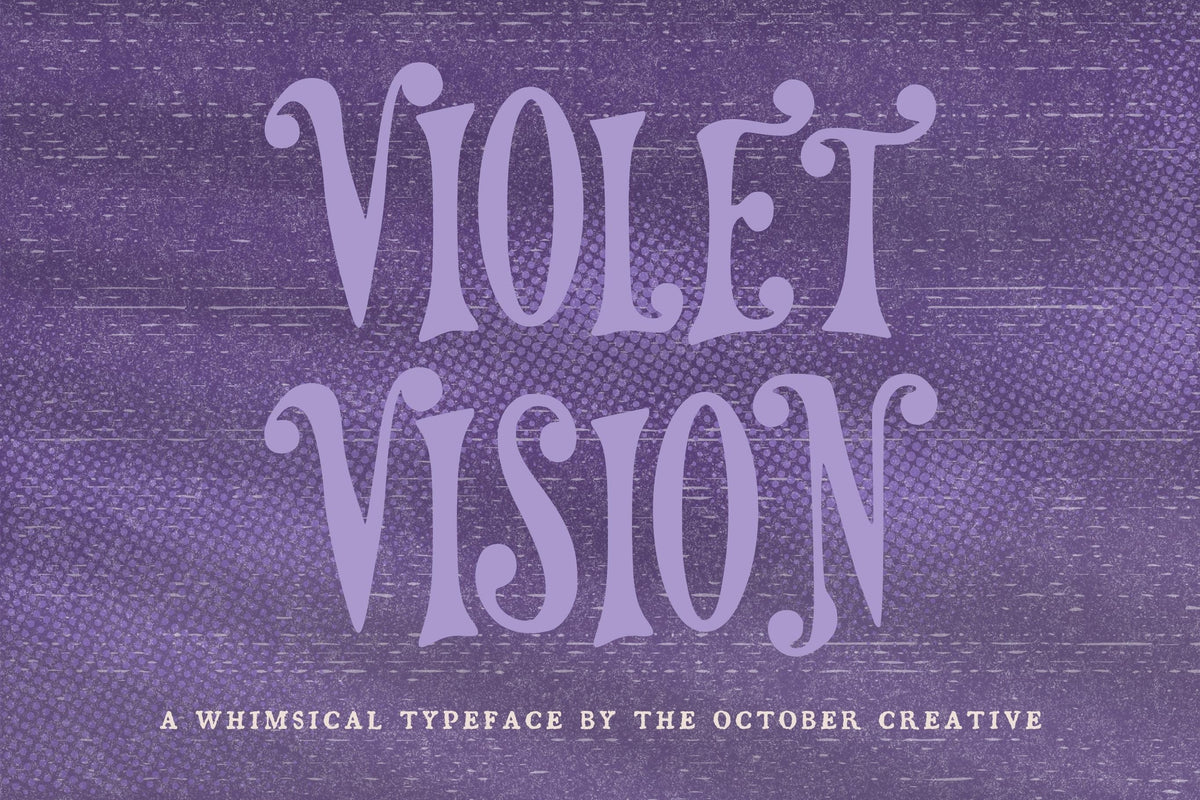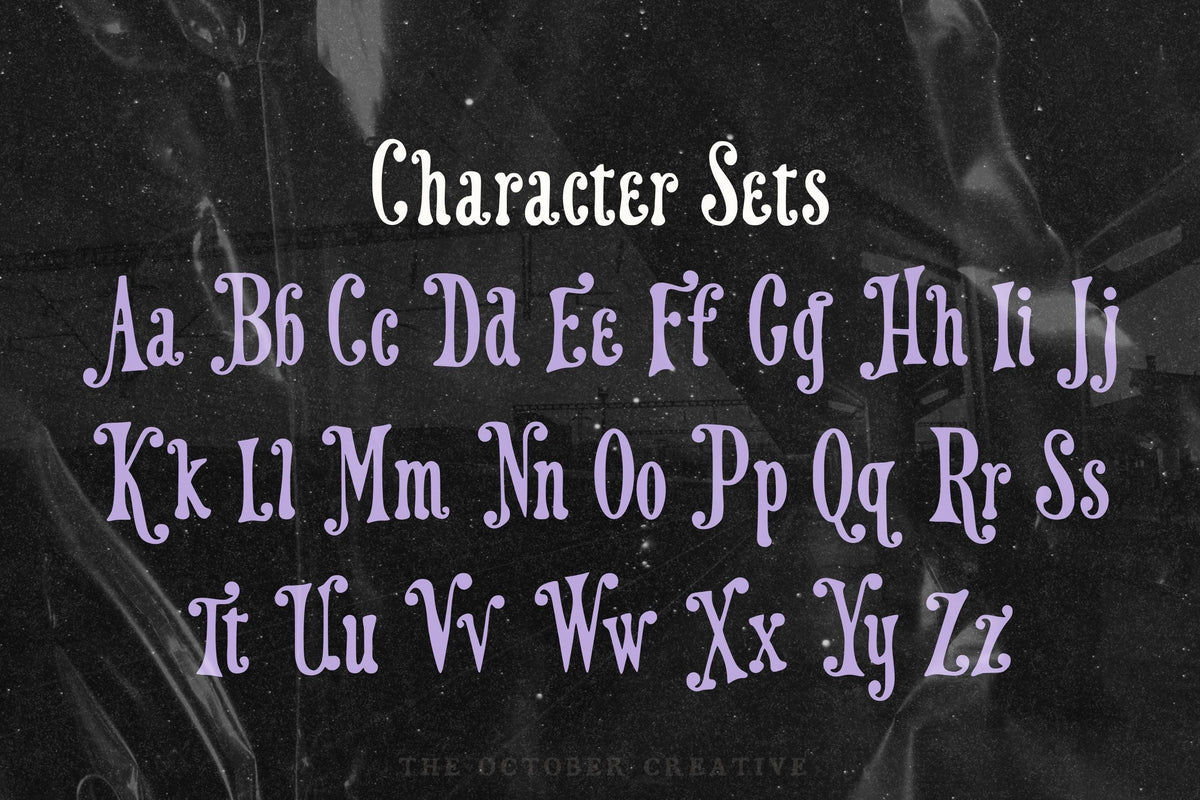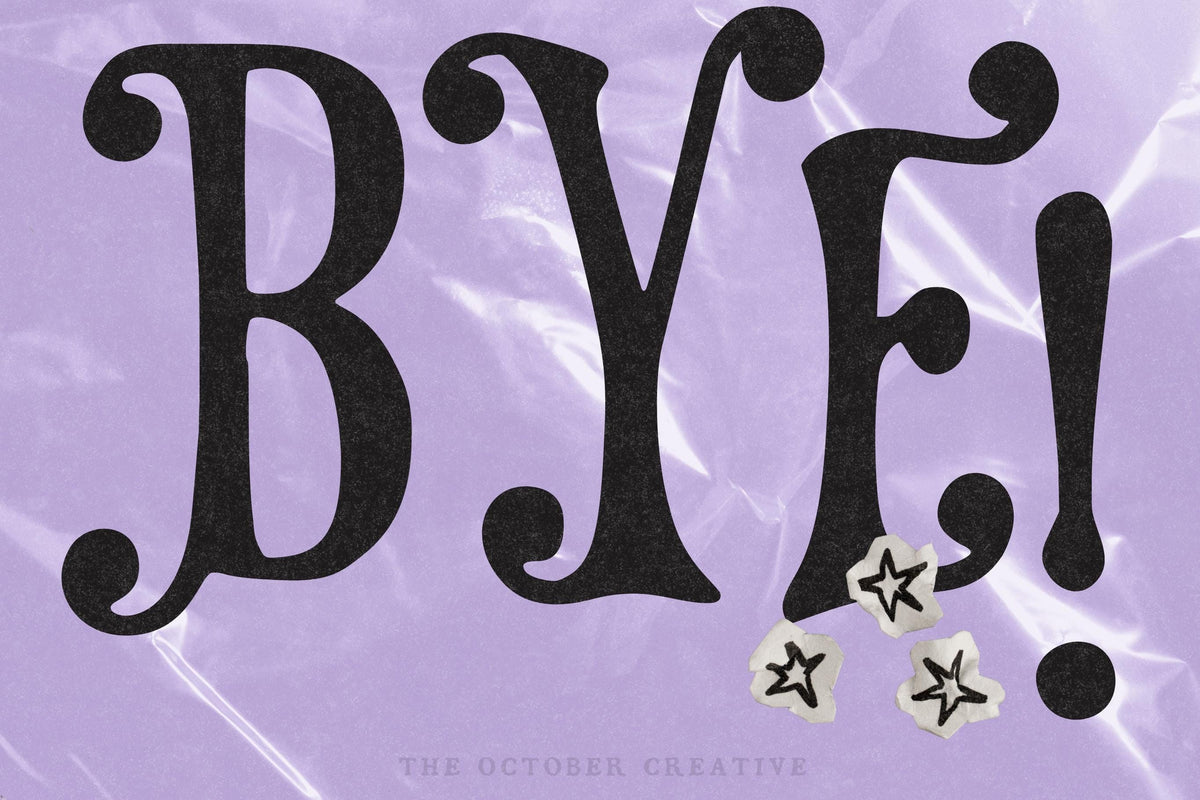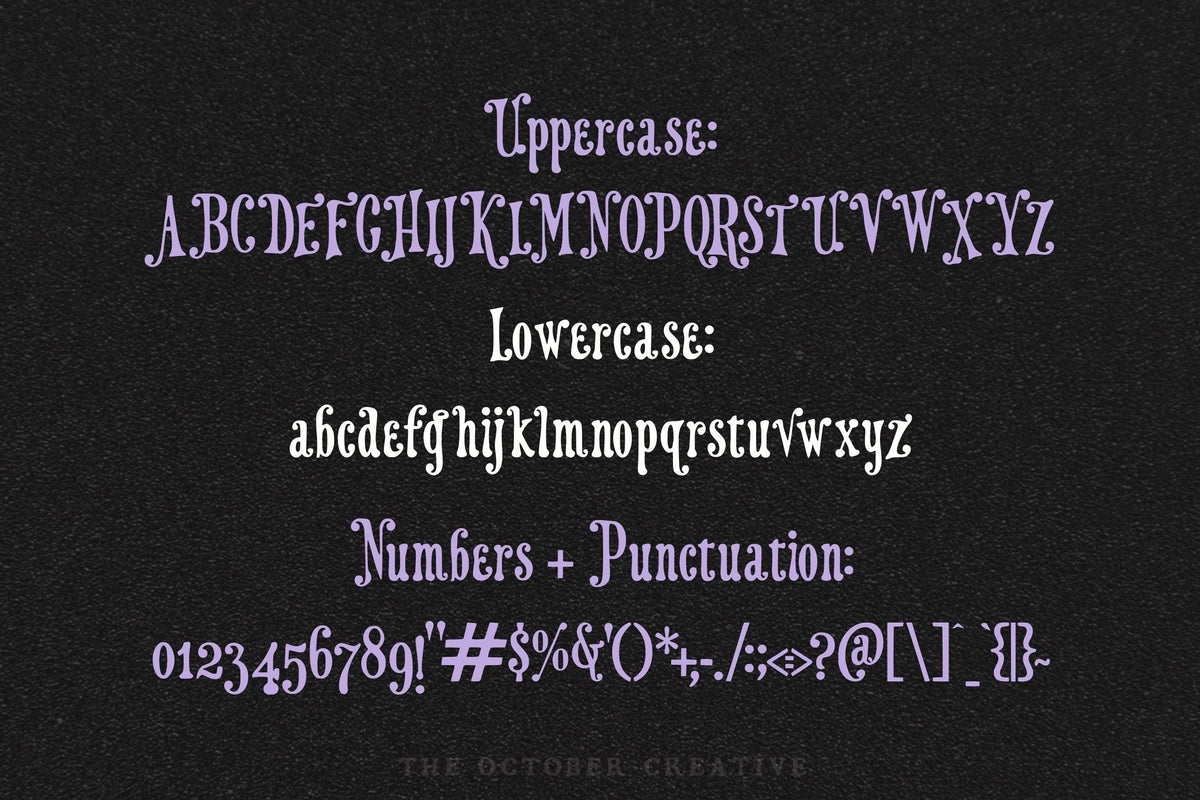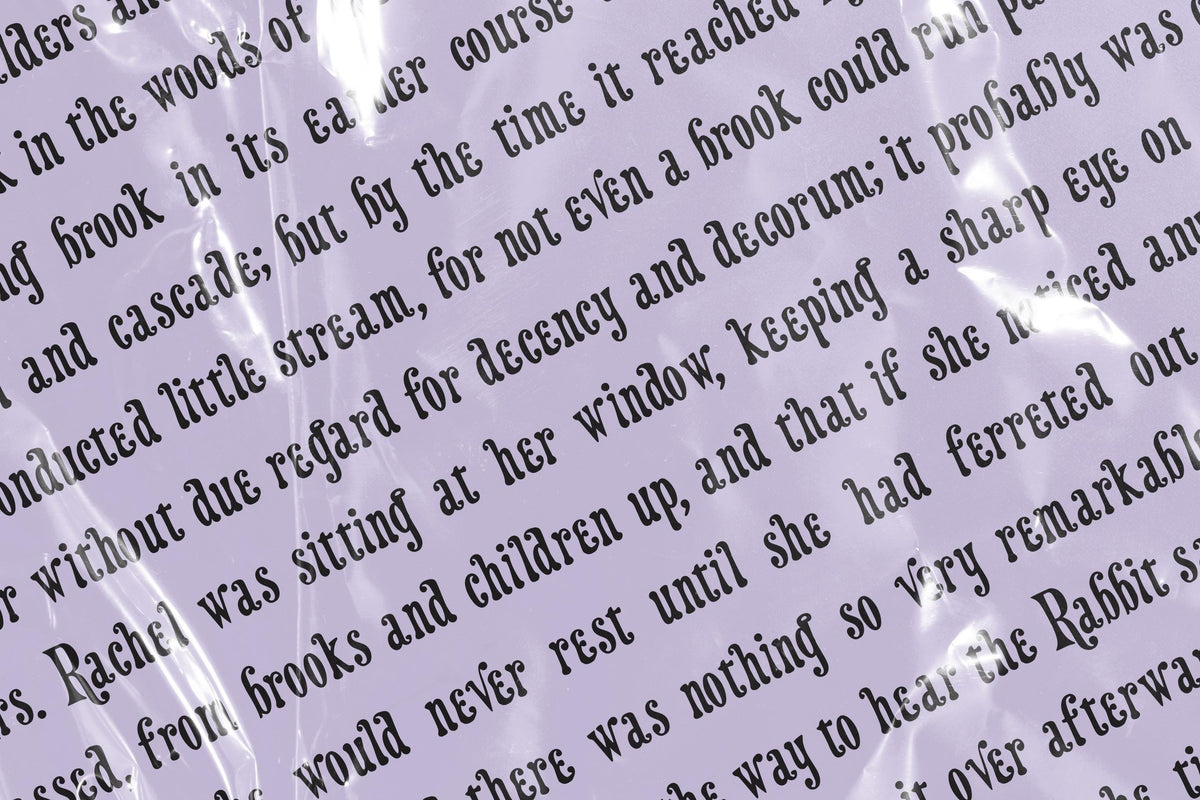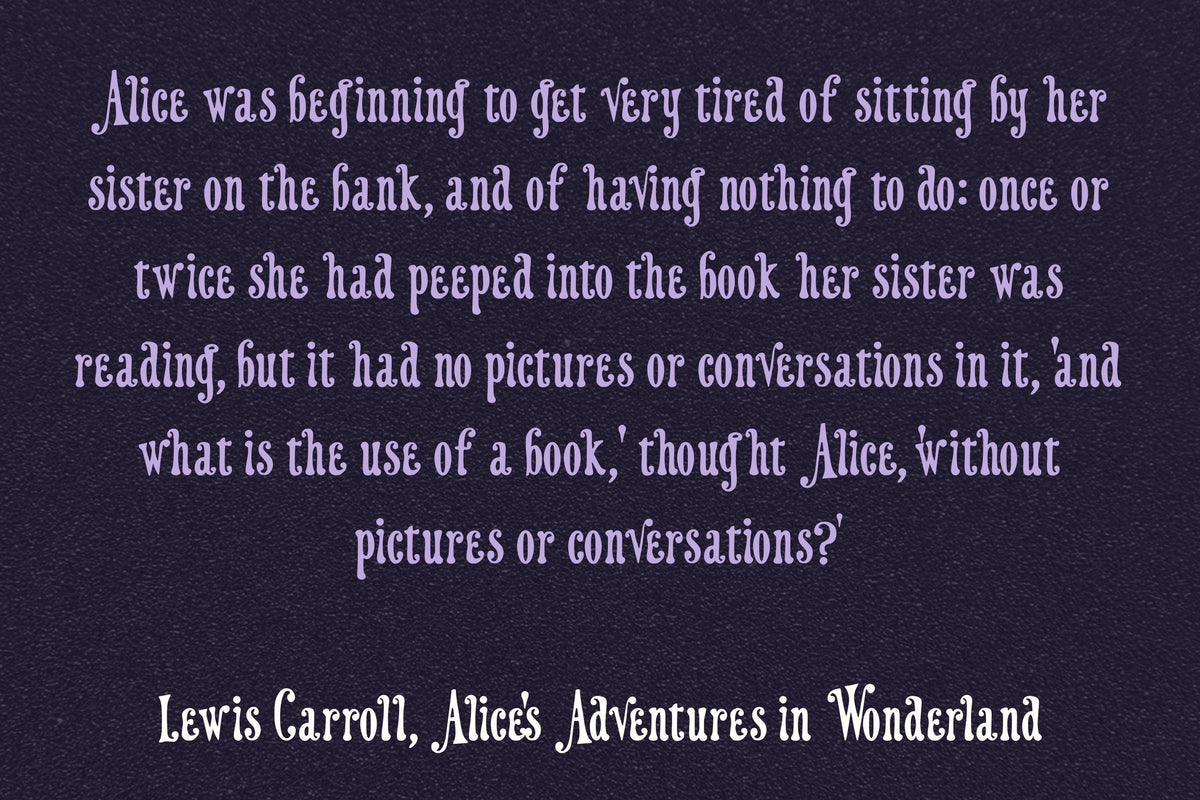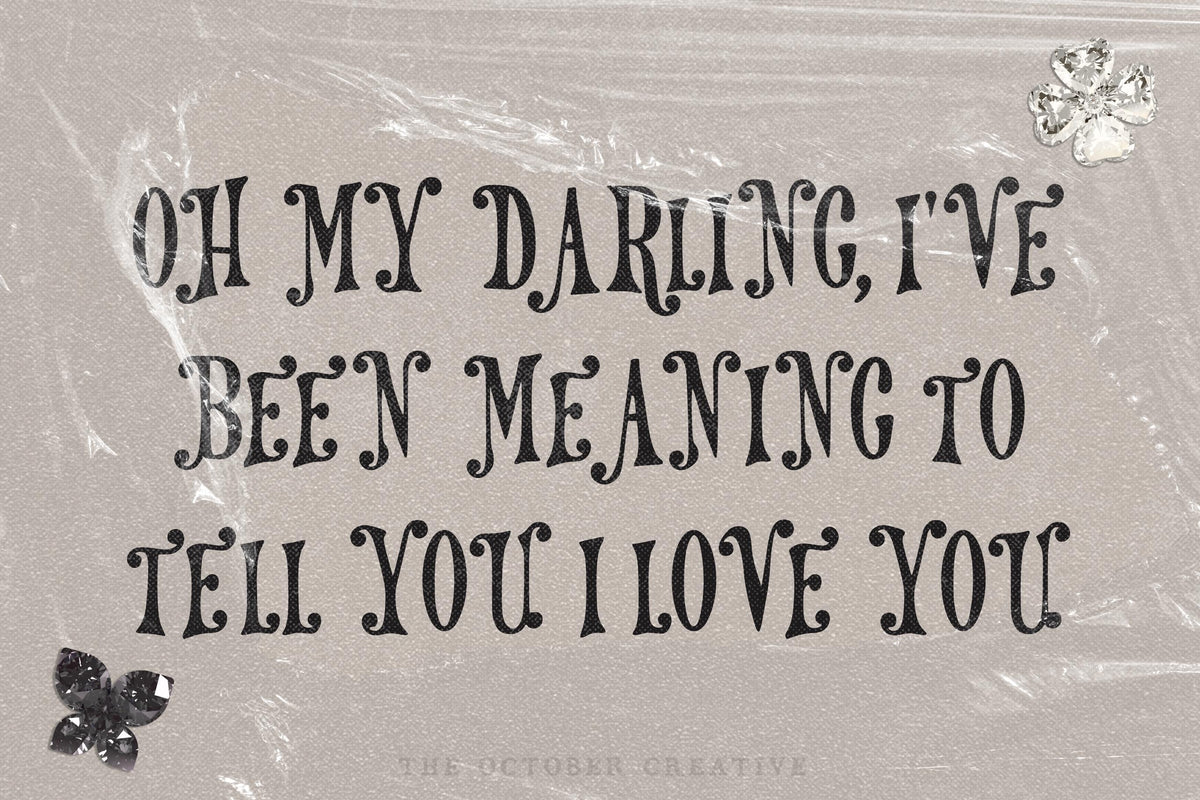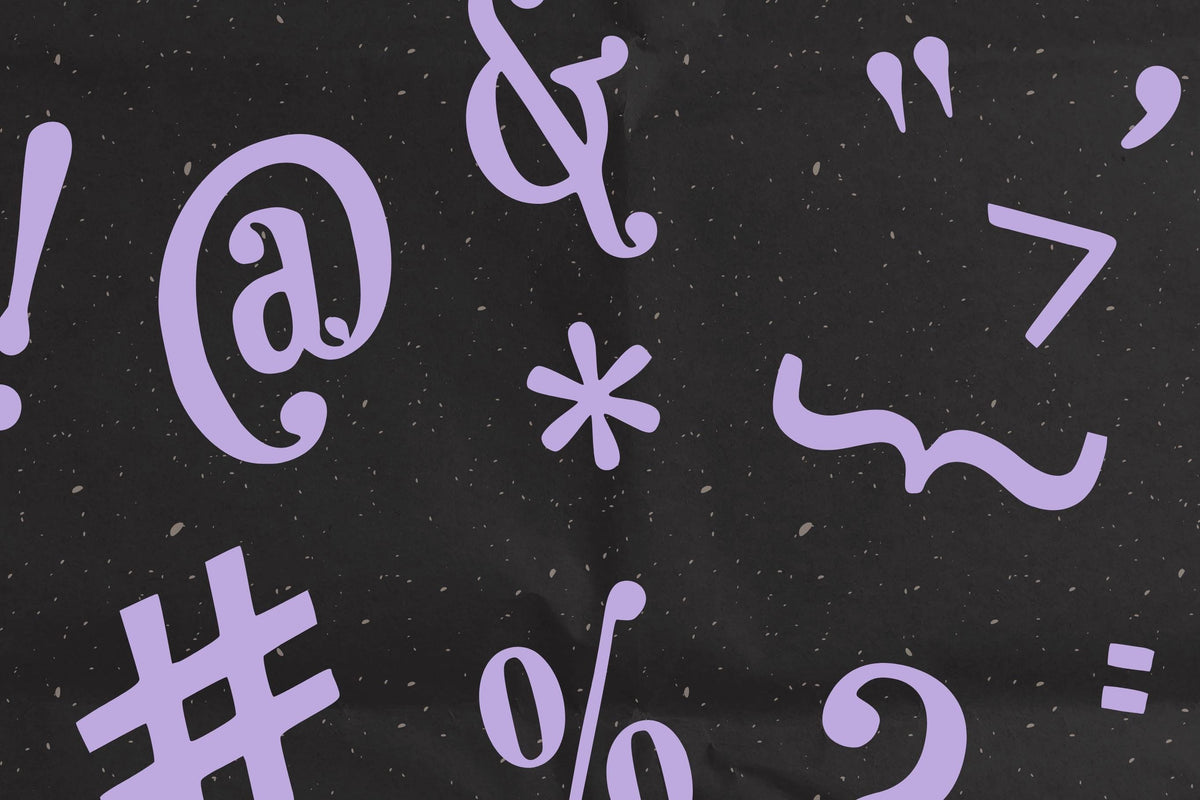
Violet Vision Font
Violet Vision is a bold Victorian display font with flared serifs, ball terminals, and curled swashes. It has a vintage circus poster look, so use it for carnival and theater posters, apothecary labels, and book covers.